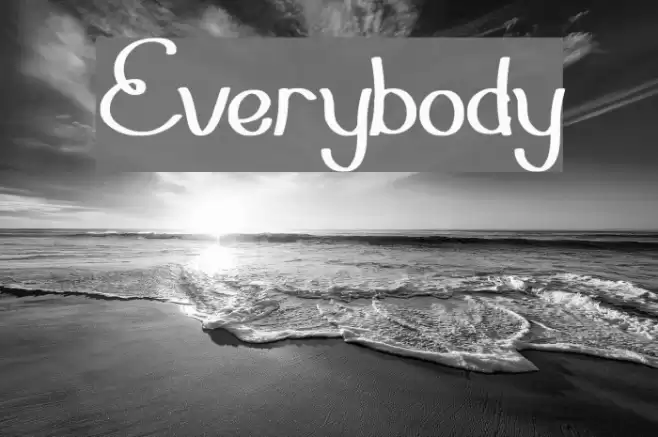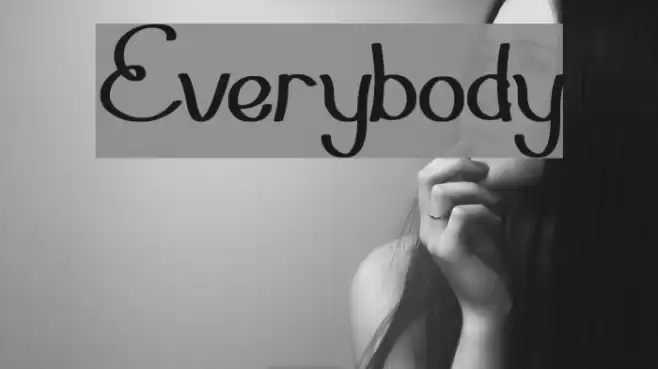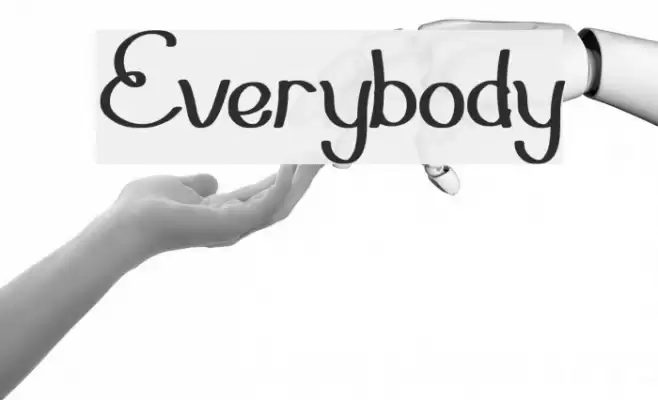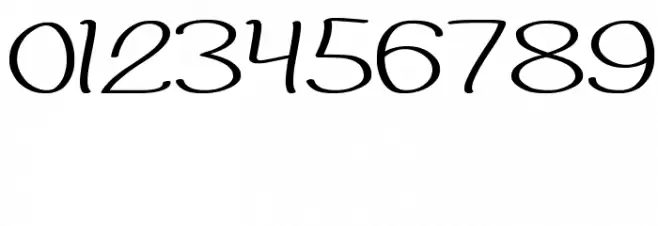
Everybody Font
Everybody Description
This font features a whimsical and playful design, characterized by its curly and looping strokes that give it a lively and energetic feel. The letters have a hand-drawn quality, with varying stroke thickness that adds to its charm. The uppercase letters are bold and prominent, while the lowercase letters maintain a consistent style with slightly exaggerated curves. The numbers follow the same playful aesthetic, making them stand out. This font is ideal for projects that require a fun and informal touch, such as children's books, invitations, or creative branding.
A whimsical, playful font with curly, hand-drawn strokes from Uncategorized fonts.
- Proposed Projects: Ideal for children's books, playful invitations, creative branding, and informal designs.
- Overall Style: Playful, Whimsical
- Use Case: Headlines, Logos, Invitations